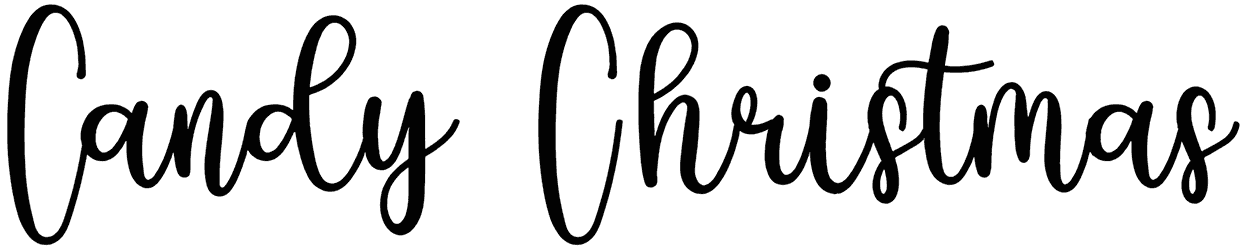
Let’s see how charming a cute and twisted design can be. This Christmas font, which is known as Miss You Christmas, is able to beautify various projects with any happy subject. Give it a try and put this script font on your intended layouts, such as posters, apparel, logos, or the like, and make them unforgettable.